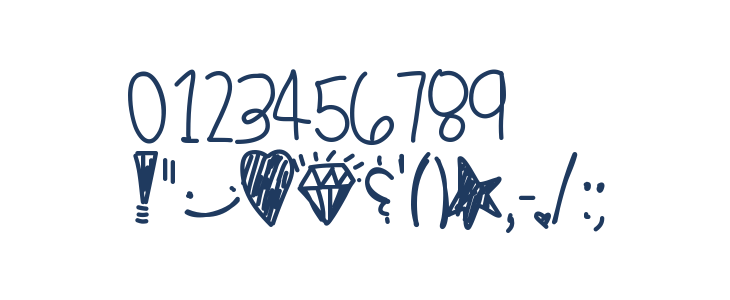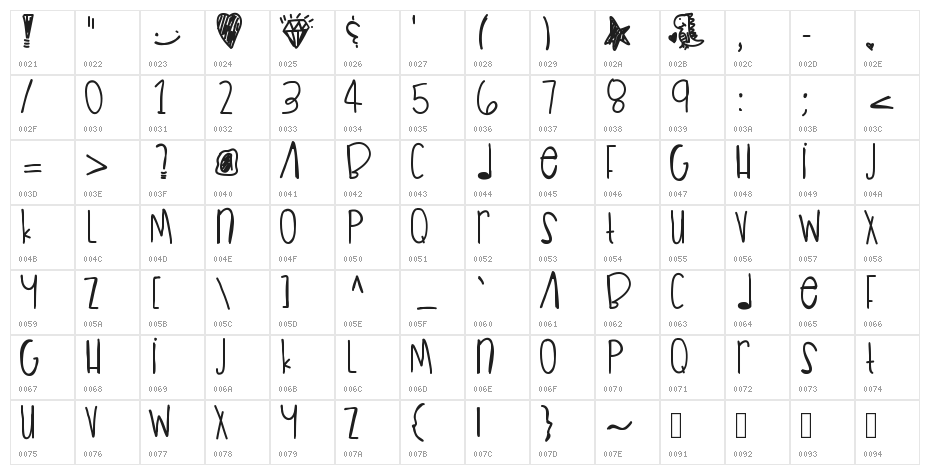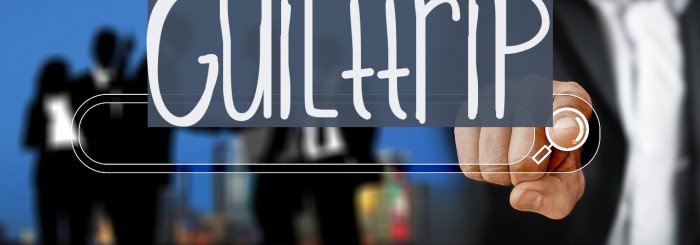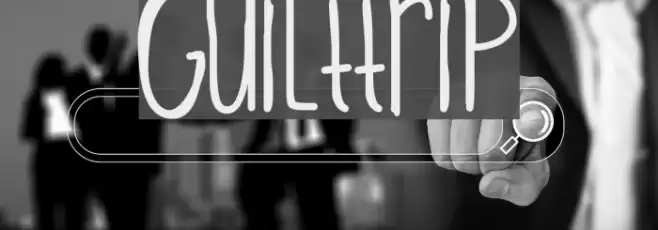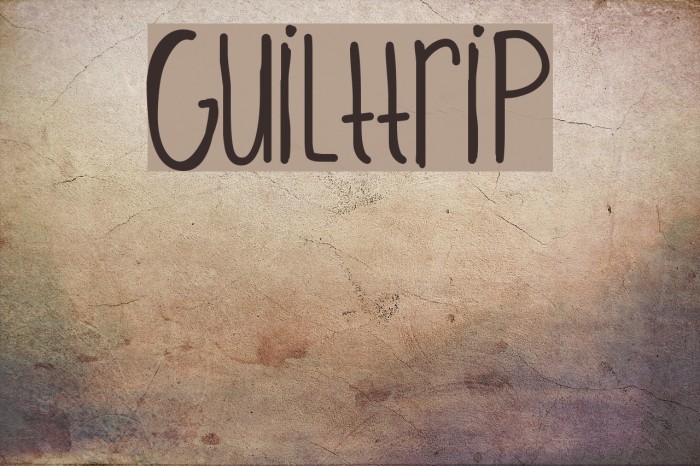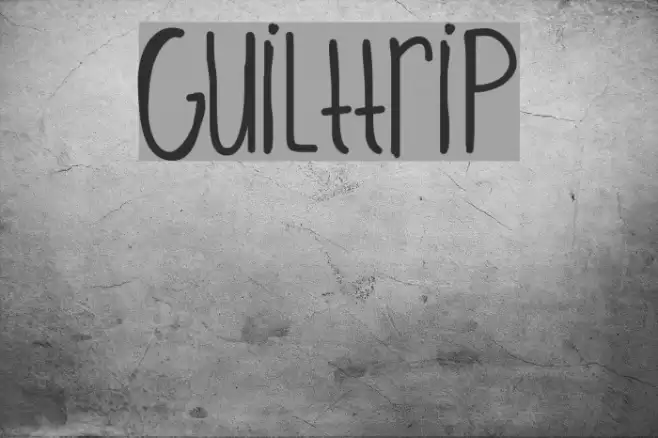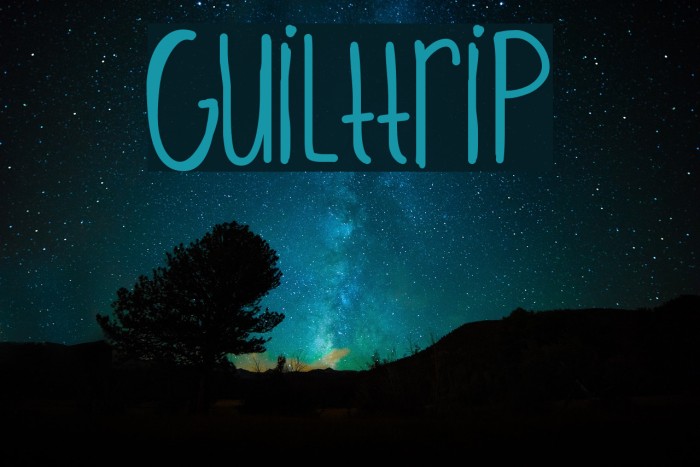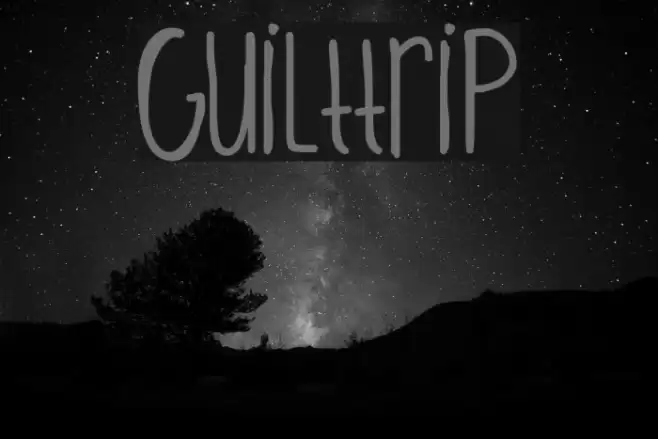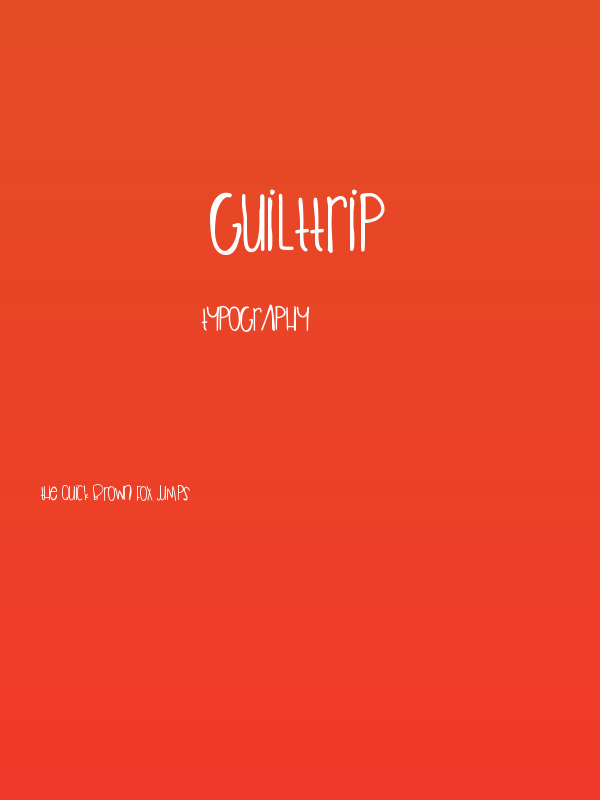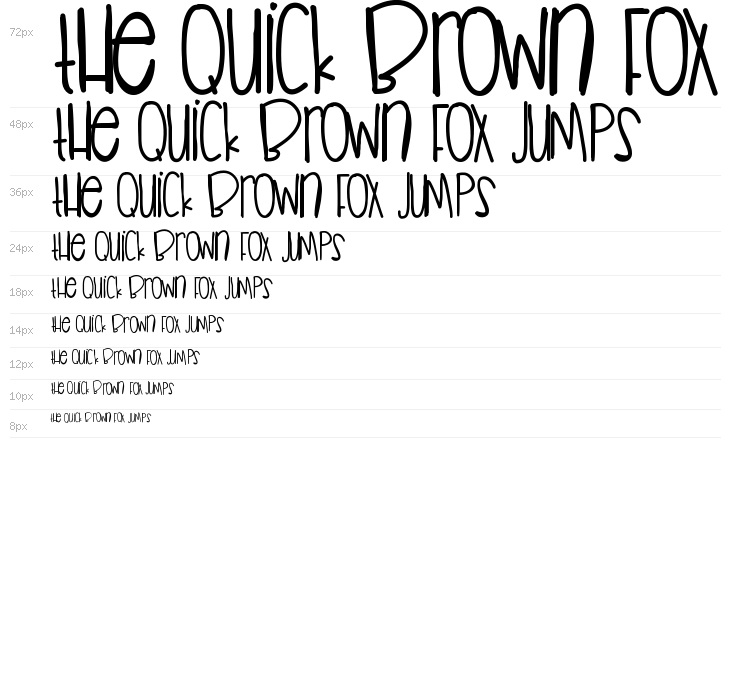
GuiltTrip Font
GuiltTrip Description
This font features a playful and whimsical handwritten style, characterized by tall, narrow letters with a slightly irregular baseline. The strokes are smooth and flowing, giving it a casual and friendly appearance. The uppercase and lowercase letters maintain a consistent height, while the numbers and special characters add a touch of creativity with their unique shapes. The overall design is informal, making it suitable for projects that require a personal and approachable touch. The font's distinctive style is perfect for conveying a sense of fun and creativity.
| Proposed Projects | Ideal for greeting cards, children's books, playful branding, and creative social media graphics. |